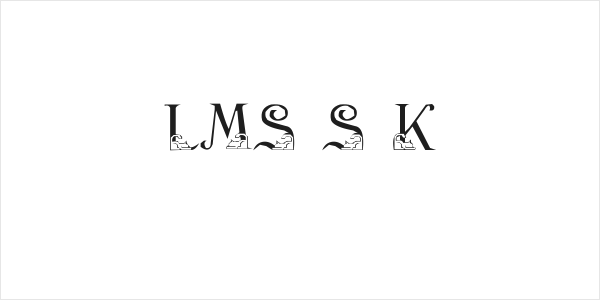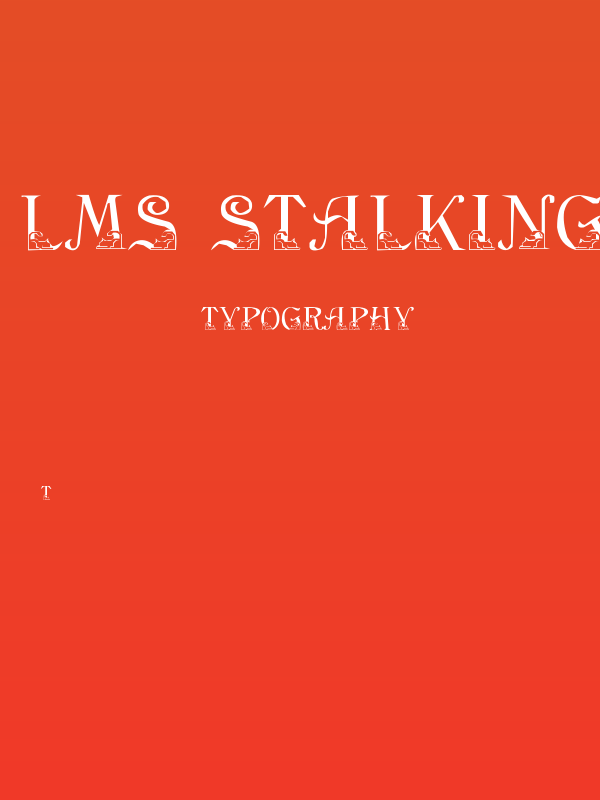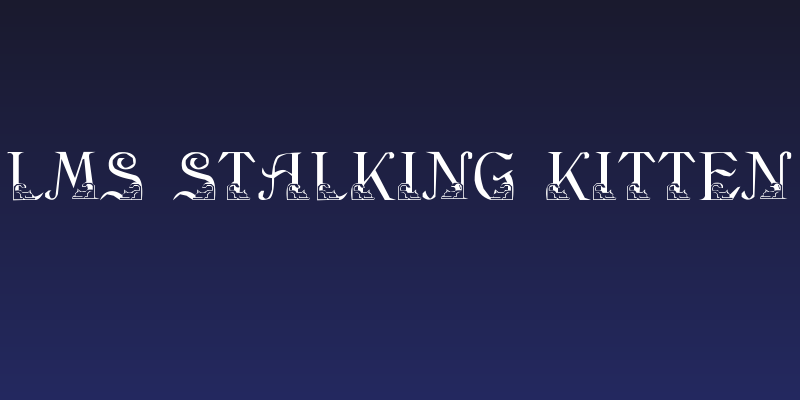
LMS Stalking Kitten Font
LMS Stalking Kitten Description
This font features a whimsical and playful design, incorporating elements that resemble stalking kittens integrated into the letterforms. Each character is adorned with a small cat motif, adding a unique and decorative touch. The overall style is decorative and imaginative, with a sense of movement and personality. The letters are bold and have a moderate contrast in stroke thickness, giving them a strong presence. The character spacing is normal, allowing for readability while maintaining the decorative elements.
| Proposed Projects | Ideal for children's books, playful branding, pet-related products, and whimsical design projects. |